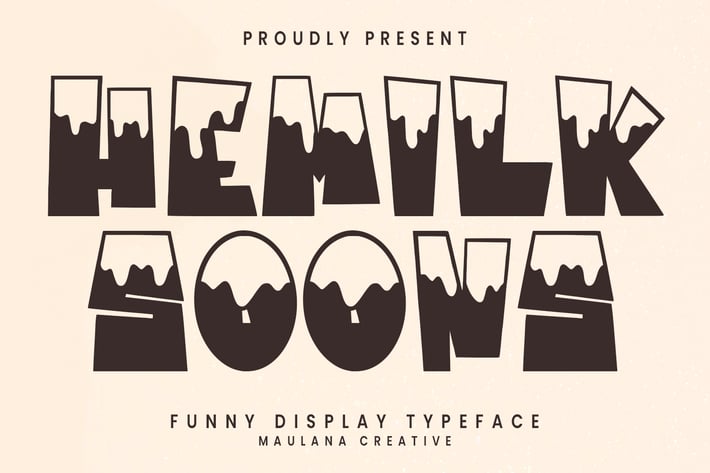
Hemilk Soons Funny Display Typeface
Hemilk Soons funny display typeface. Heavy stroke, fun character with a bit of ligatures. To give you an extra creative work. Hemilk Soons funny display typeface support multilingual more than 100+ language. This font is good for logo design, Social media, Movie Titles, Books Titles, a short text even a long text letter and good for your secondary text font with script or serif. Make a stunning work with Hemilk Soons funny display typeface.